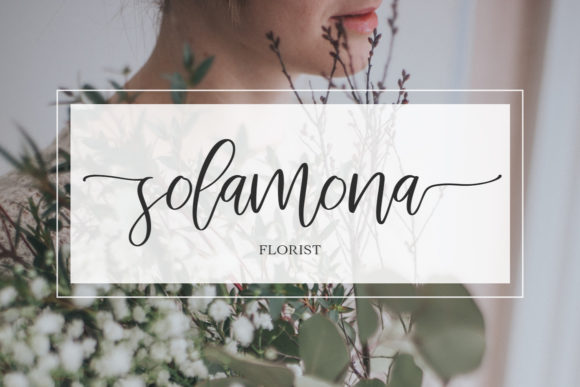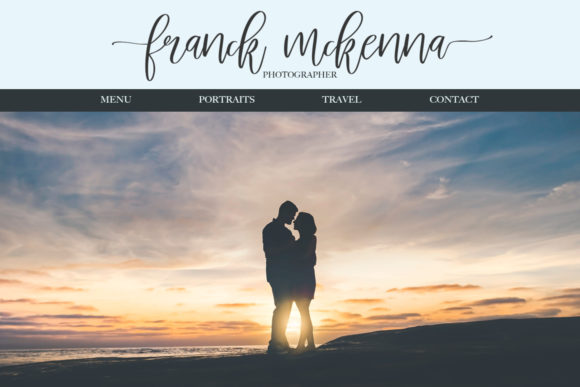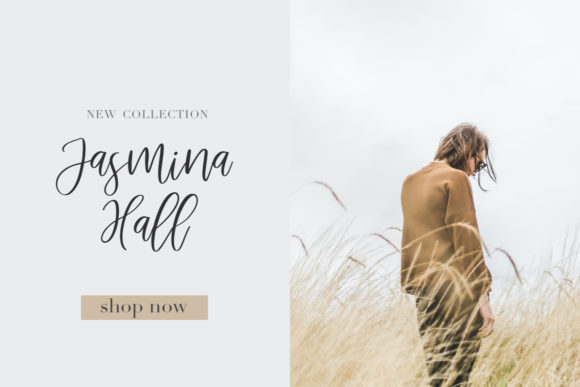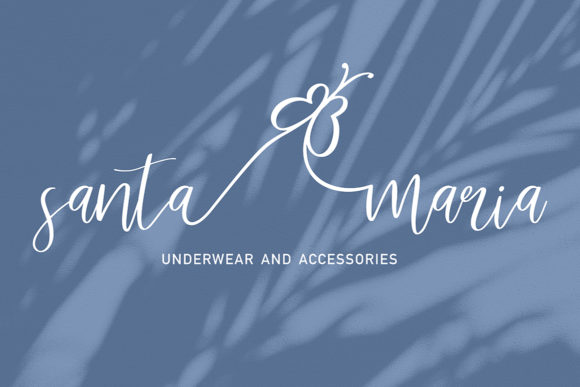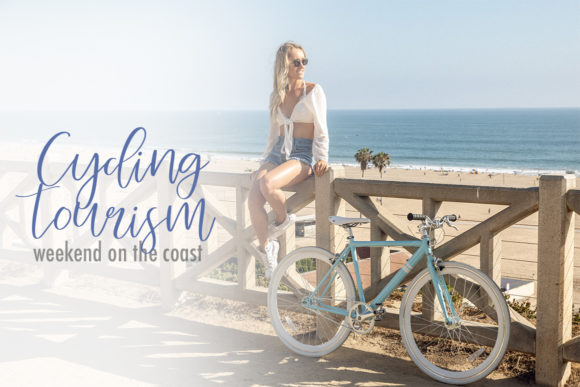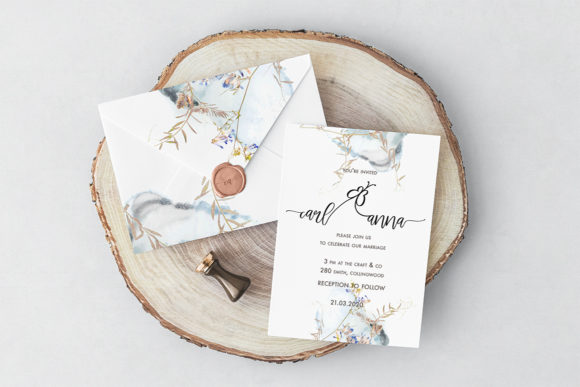
Introducing Dear Lola Font: Elevate Your Designs with Elegance and Sophistication
Are you a designer or crafter looking for a font that exudes elegance and sophistication? Look no further than Dear Lola Font. This stylish and incredibly elegant script font is perfect for adding a touch of refinement to your designs. In this article, we’ll explore the features and benefits of Dear Lola Font, and how it can elevate your designs to the next level.
What is Dear Lola Font?
Dear Lola Font is a beautiful script font that is designed to add a touch of elegance and sophistication to your designs. Its flowing lines and cursive strokes make it perfect for creating stunning wedding invitations, thank you cards, quotes, greeting cards, logos, business cards, and more.
Key Features of Dear Lola Font
- Elegant and Refined: Dear Lola Font features elegant and refined lettering that is perfect for designs that require a touch of sophistication.
- Script Font: This beautiful script font is designed to mimic the look of handwritten lettering, making it perfect for creating unique and personalized designs.
- Versatile: Dear Lola Font can be used for a wide range of design projects, from wedding invitations and greeting cards to logos and business cards.
- Easy to Read: Despite its elegant and cursive nature, Dear Lola Font is easy to read, making it perfect for designs that require a clear and legible font.
Benefits of Using Dear Lola Font
So, why should you choose Dear Lola Font for your designs? Here are just a few benefits of using this beautiful script font:
- Adds a Touch of Elegance: Dear Lola Font adds a touch of elegance and sophistication to your designs, making them perfect for special occasions and formal events.
- Creates a Personalized Look: The handwritten nature of Dear Lola Font creates a personalized look that is perfect for designs that require a unique and human touch.
- Versatile and Flexible: Dear Lola Font can be used for a wide range of design projects, making it a versatile and flexible font that can be used in many different contexts.
Design Ideas Using Dear Lola Font
So, how can you use Dear Lola Font in your designs? Here are a few ideas to get you started:
- Wedding Invitations: Use Dear Lola Font to create stunning wedding invitations that set the tone for a beautiful and elegant wedding.
- Greeting Cards: Create personalized greeting cards for special occasions, such as birthdays, anniversaries, and holidays.
- Logos and Branding: Use Dear Lola Font to create elegant and sophisticated logos and branding materials for your business or clients.
- Quotes and Typography: Use Dear Lola Font to create beautiful quotes and typography designs that showcase the font’s elegant and refined lettering.
In conclusion, Dear Lola Font is a beautiful and elegant script font that is perfect for designers and crafters looking to add a touch of sophistication to their designs. With its flowing lines, cursive strokes, and refined lettering, Dear Lola Font is versatile, flexible, and easy to use. Whether you’re creating wedding invitations, greeting cards, logos, or quotes, Dear Lola Font is the perfect choice for designs that require a touch of elegance and refinement.